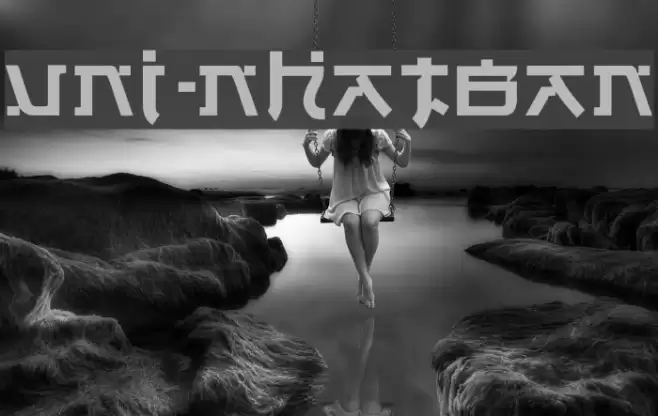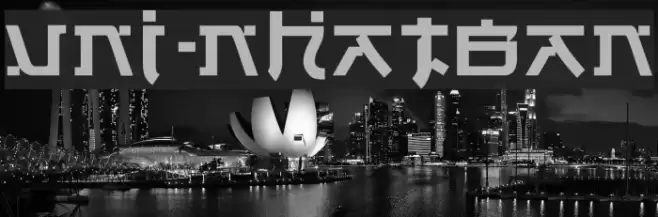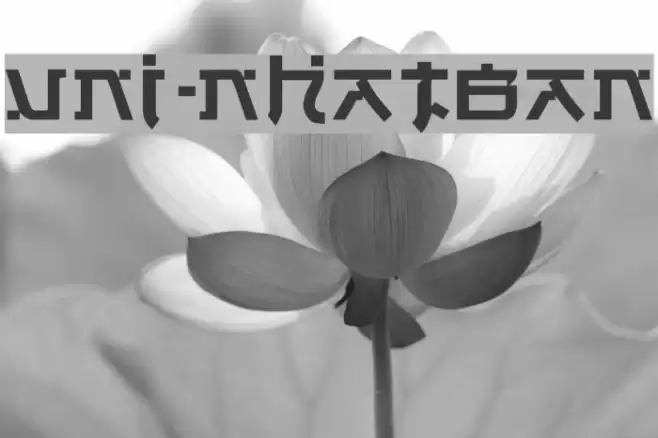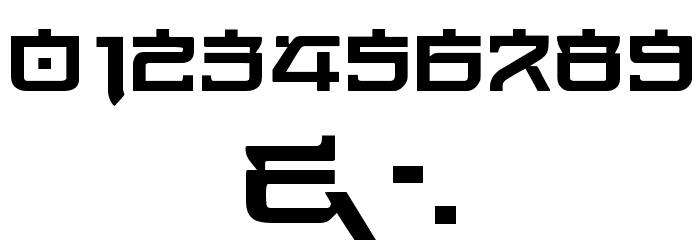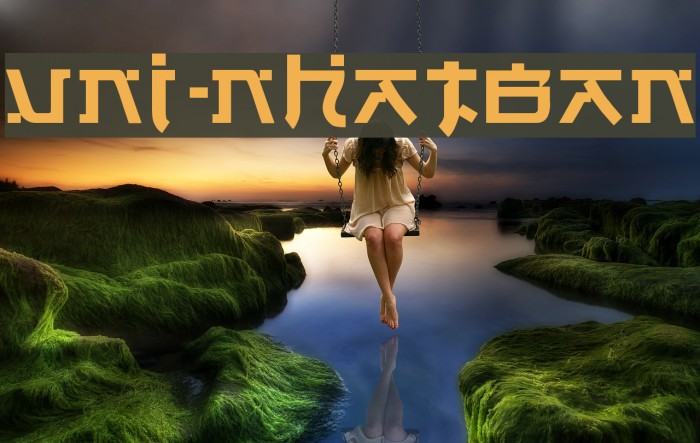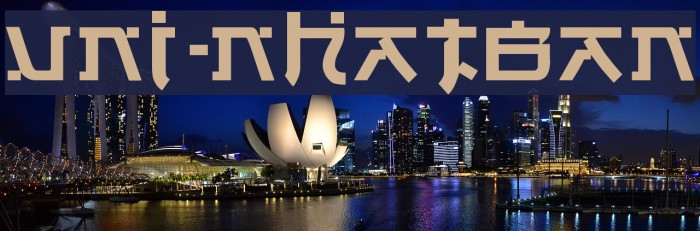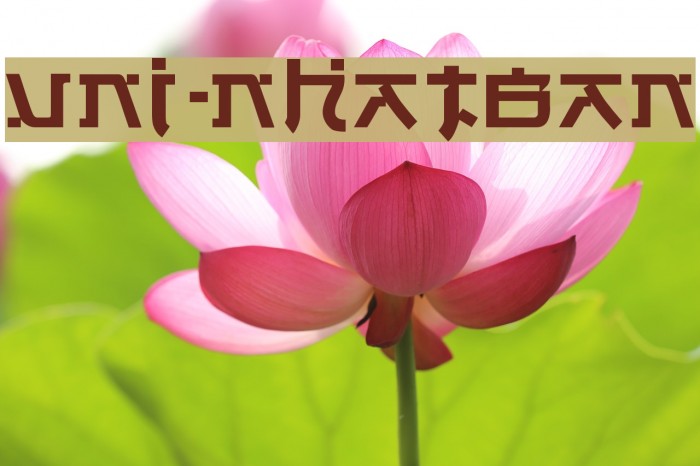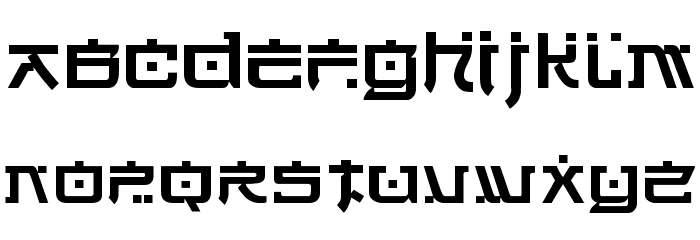
VNI-Nhatban Font
VNI-Nhatban Description
This font exhibits a unique, futuristic style with geometric and angular elements. The characters are bold and have a distinct, almost mechanical appearance, characterized by sharp edges and a blocky structure. The uppercase and lowercase letters maintain a consistent design, with some characters featuring cut-out sections that add to the modern aesthetic. The numerals follow the same stylistic cues, ensuring uniformity across the typeface. Special characters are designed to match the overall theme, making this font suitable for projects that require a contemporary and edgy look.
A bold, futuristic font with geometric and angular design elements from Uncategorized fonts.
- Proposed Projects: Ideal for sci-fi themed designs, technology branding, video game titles, and modern posters.